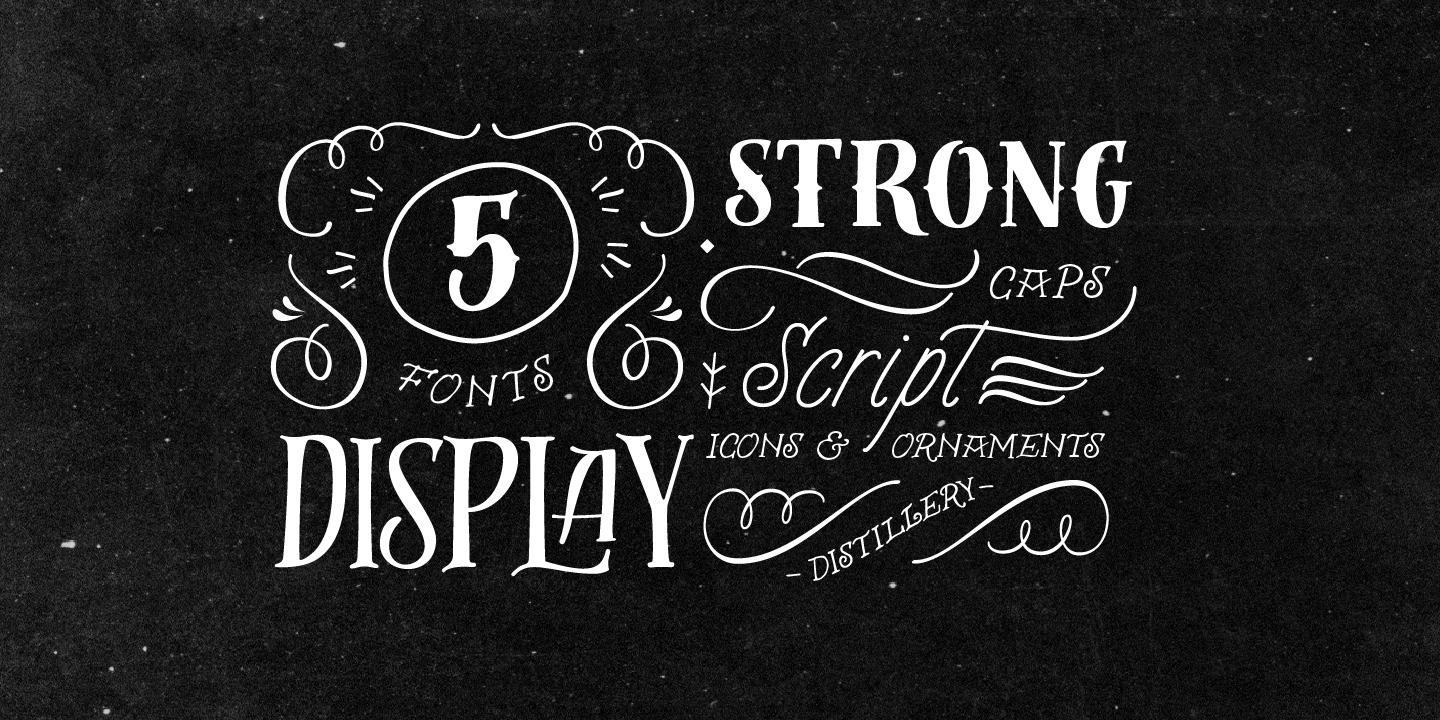
Distillery Font excels in beverage branding, whiskey labels, craft brewery logos, vintage packaging, rustic signage, artisanal product designs, bar menus, and authentic heritage branding projects.
Distillery Font is exciting because it captures the rugged authenticity and time-honored craftsmanship of traditional distillery culture, featuring weathered letterforms that tell stories of heritage and quality. This font delivers genuine character with its handcrafted appeal that resonates with artisanal brands.
Distillery Font family includes regular, bold, distressed, and outline variations, plus decorative elements and vintage ornaments, providing complete authenticity for craft beverage and heritage brand applications.
Craft authentic brand stories with Distillery Font Free Download. This remarkable typeface embodies the spirit of traditional craftsmanship and artisanal excellence, featuring weathered letterforms that evoke the rich heritage of time-honored distilleries. Perfect for designers working with craft beverages and heritage brands, this font delivers genuine character with professional versatility.
The masterfully designed characters showcase the perfect balance between rustic charm and commercial readability, making it ideal for premium product packaging and authentic brand communications. Each letter carries the weight of tradition while maintaining contemporary functionality across various media applications.
Whether you're creating craft spirits branding, artisanal food packaging, or heritage-focused marketing campaigns, Distillery Font provides the authentic character your projects demand. This versatile typeface transforms ordinary text into compelling brand narratives that connect with consumers who value quality, tradition, and the artisanal approach to business and product development.